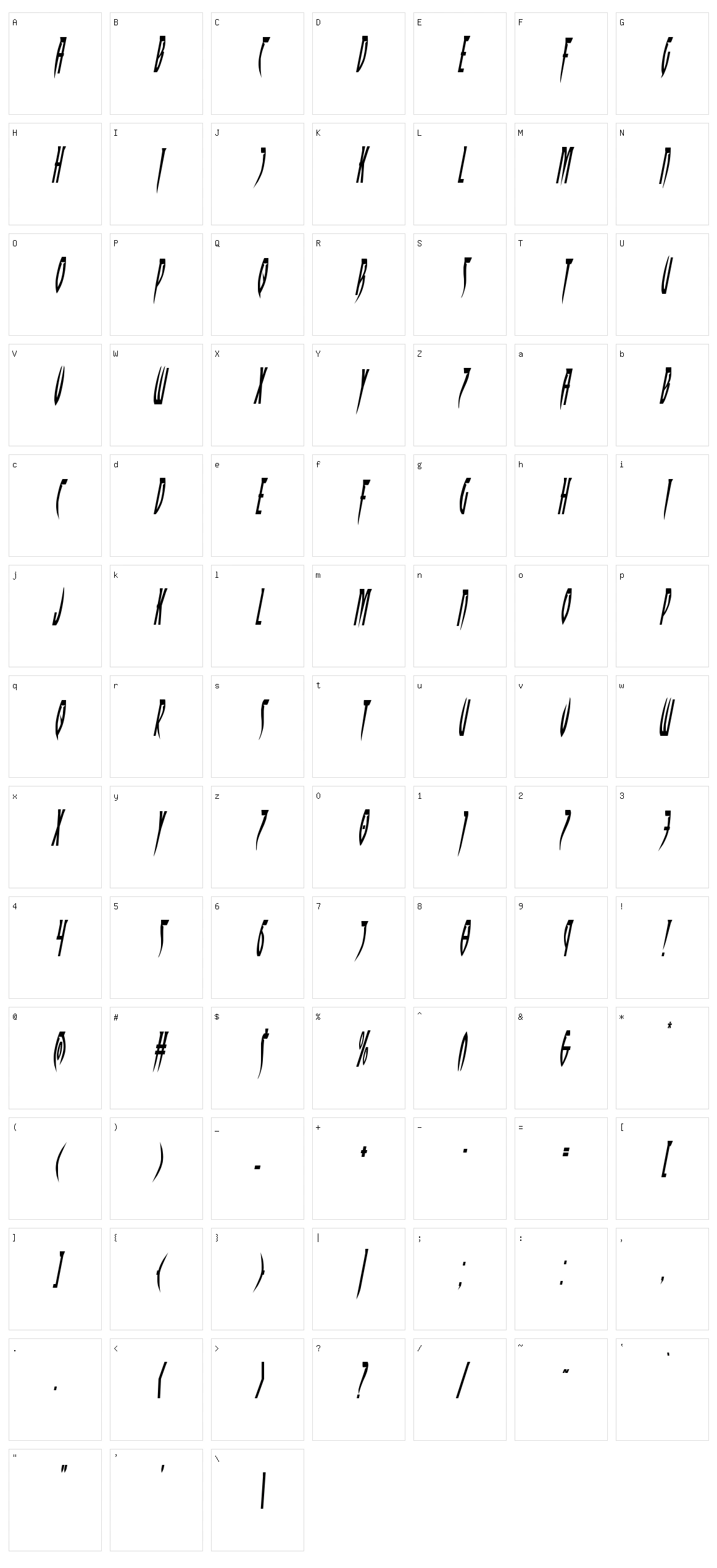
Inhumanity
This font comes with the following 17 versions: Regular, Italic, Condensed, Condensed Italic, Expanded, Expanded Italic, Extra-Expanded, Extra-Expanded Italic, 3D, 3D Italic, Outline, Outline Italic, Halftone, Halftone Italic, Laser, Laser Italic and Leftalic.